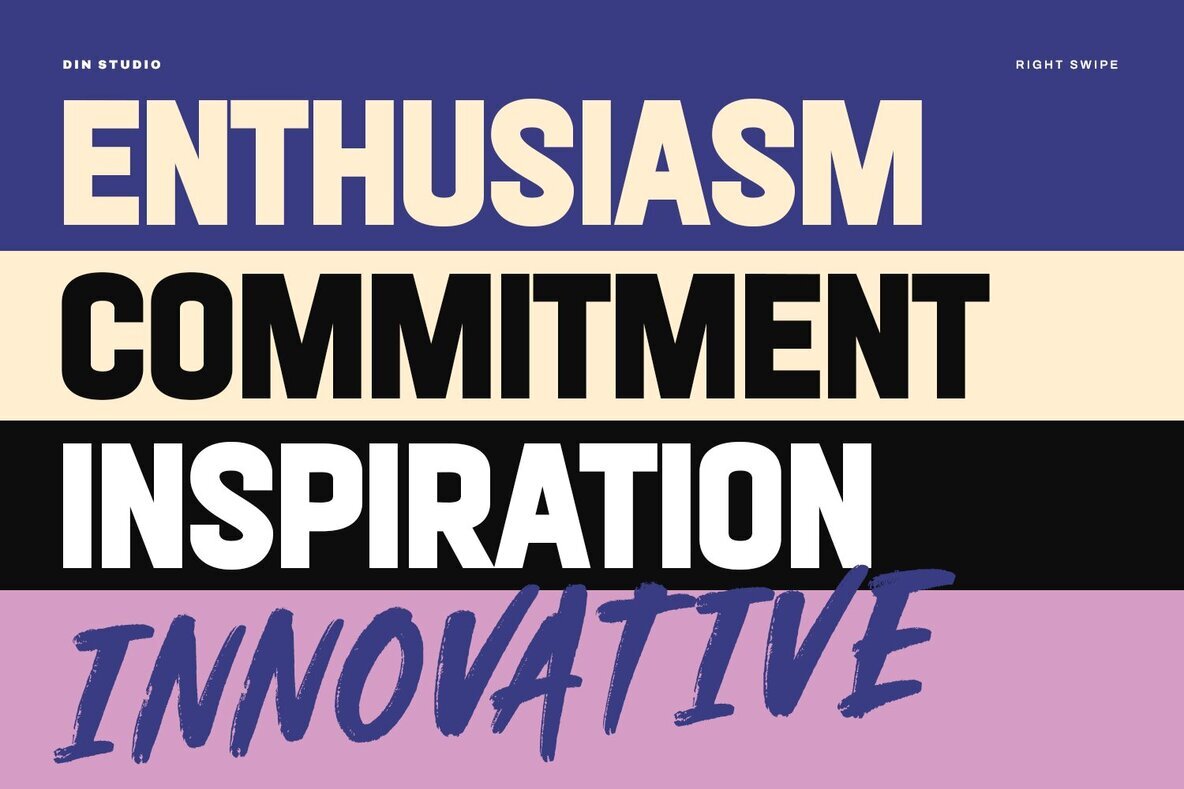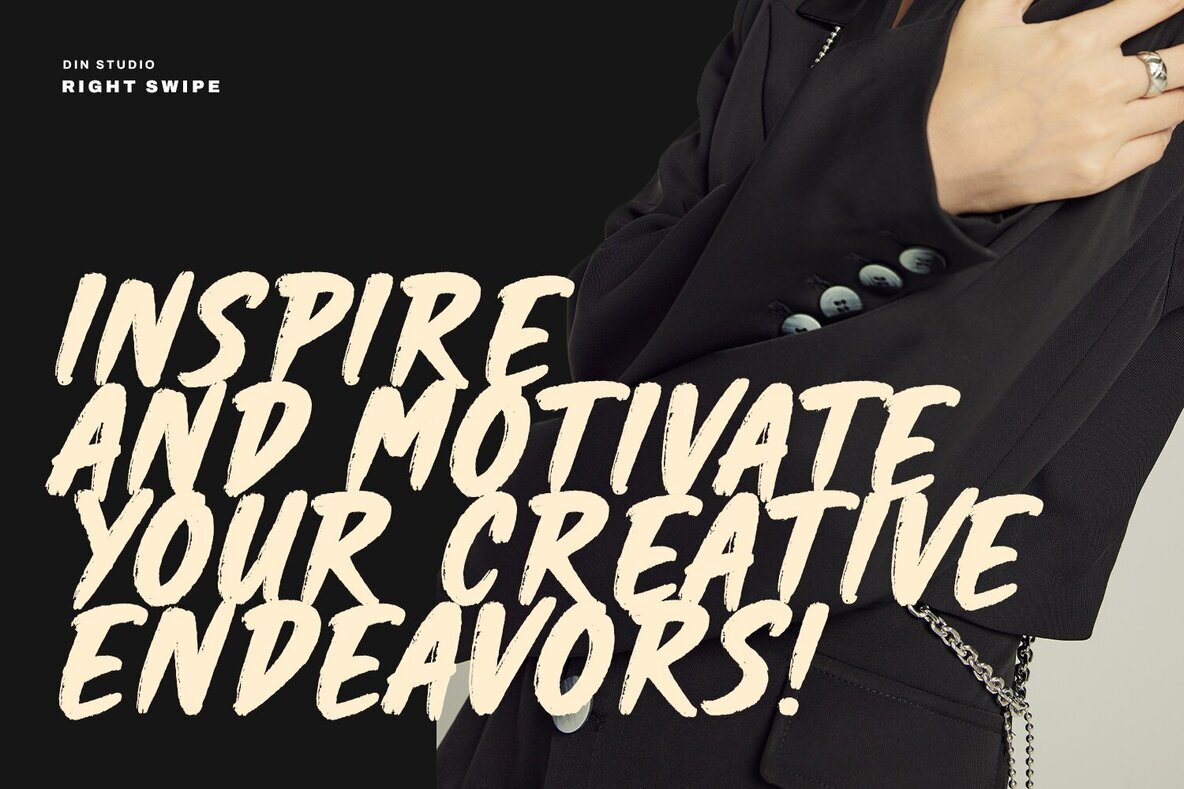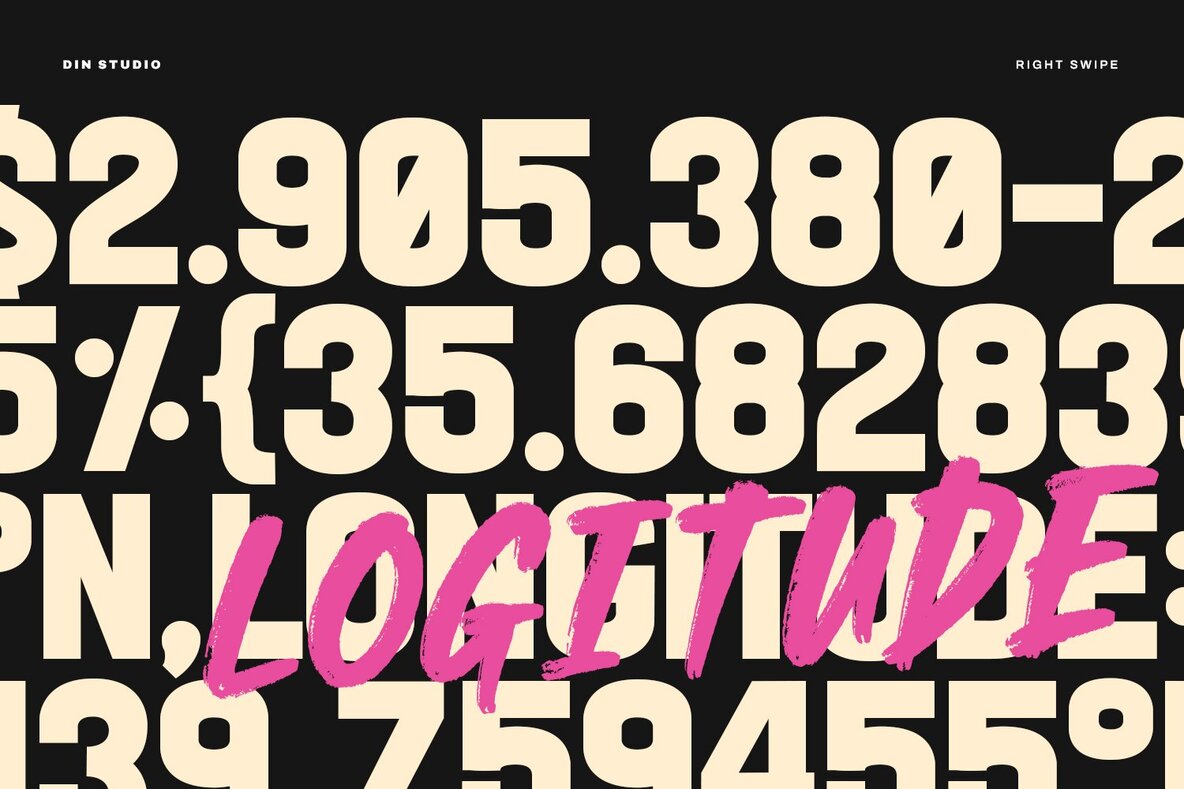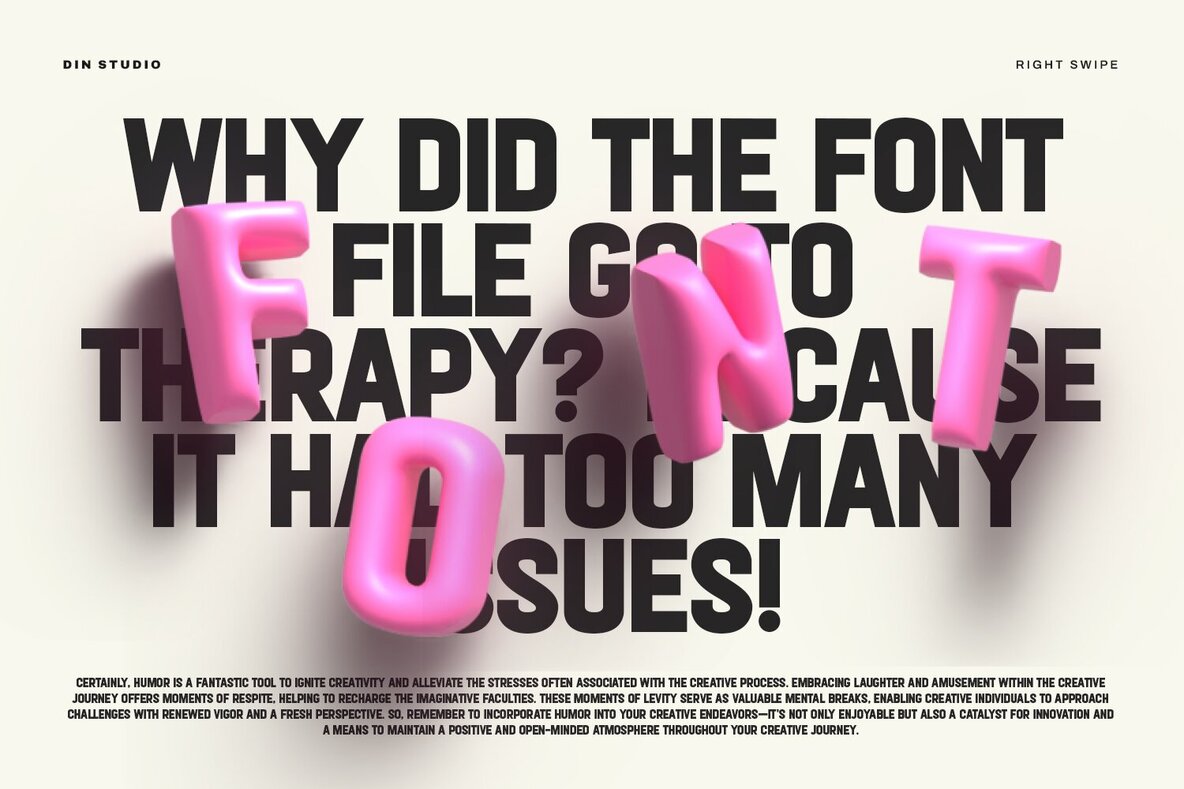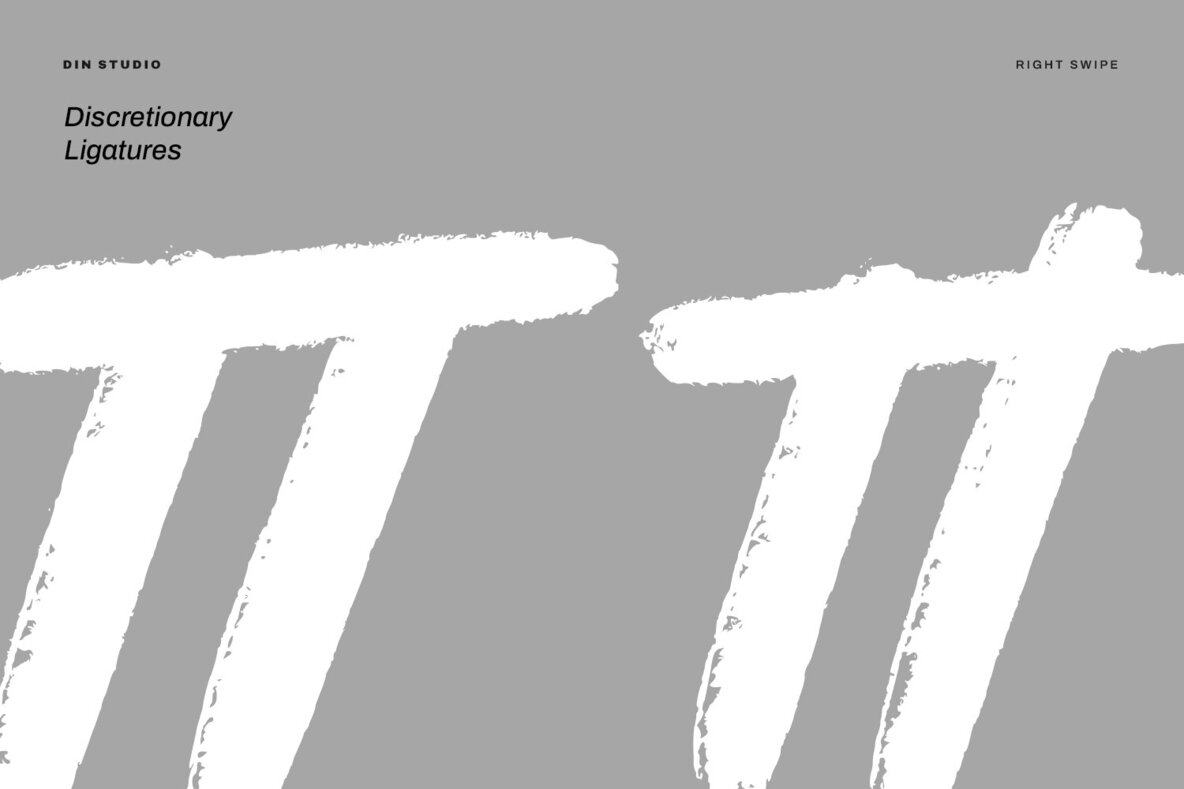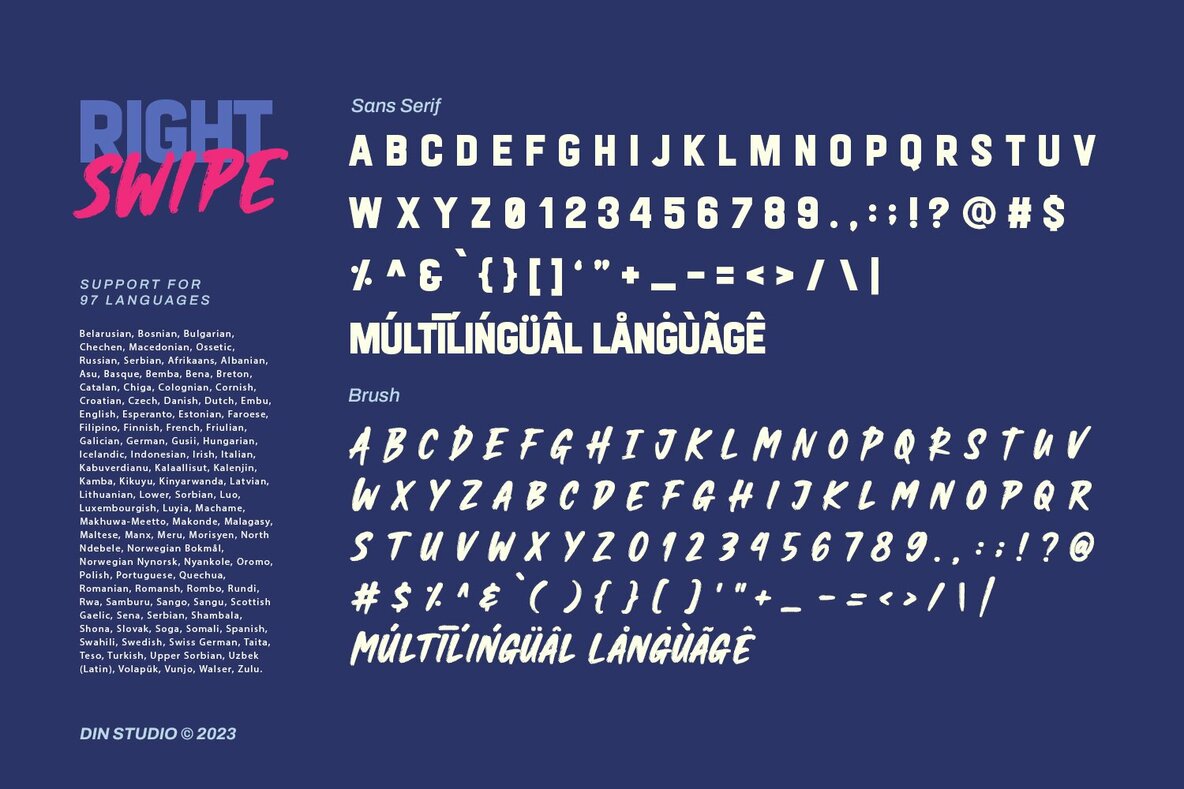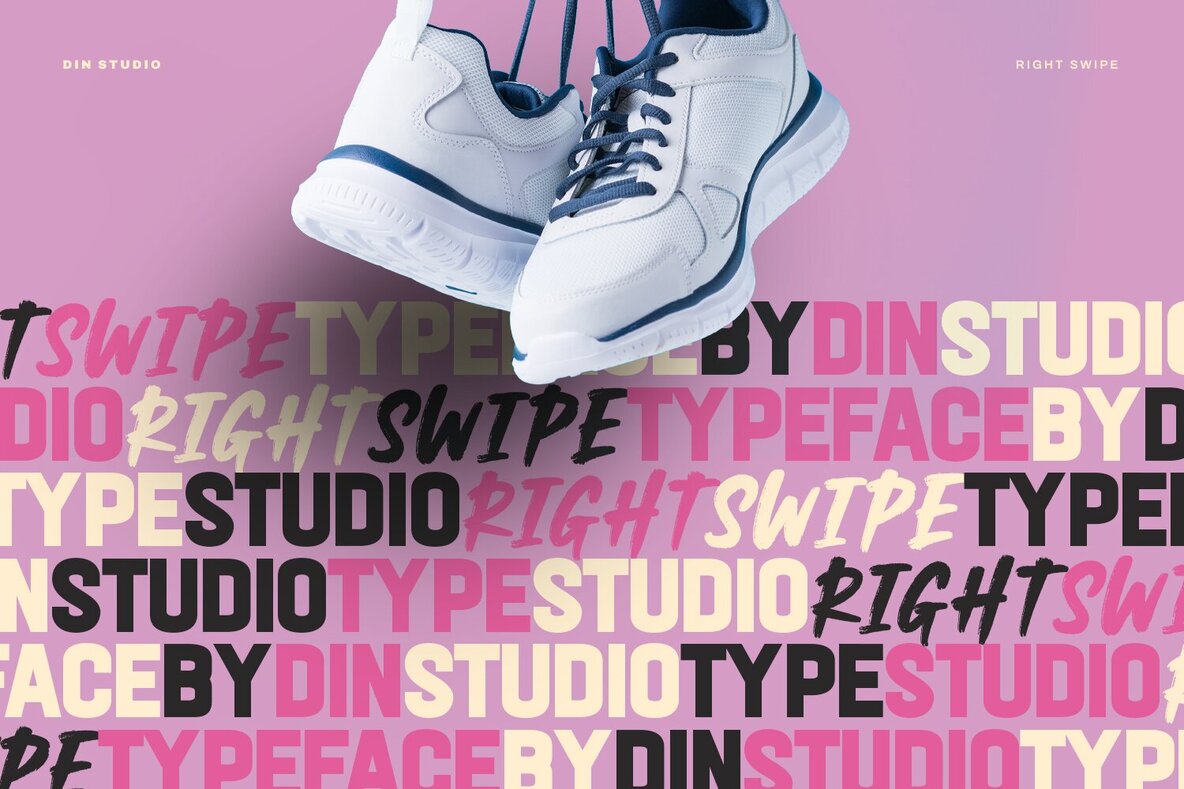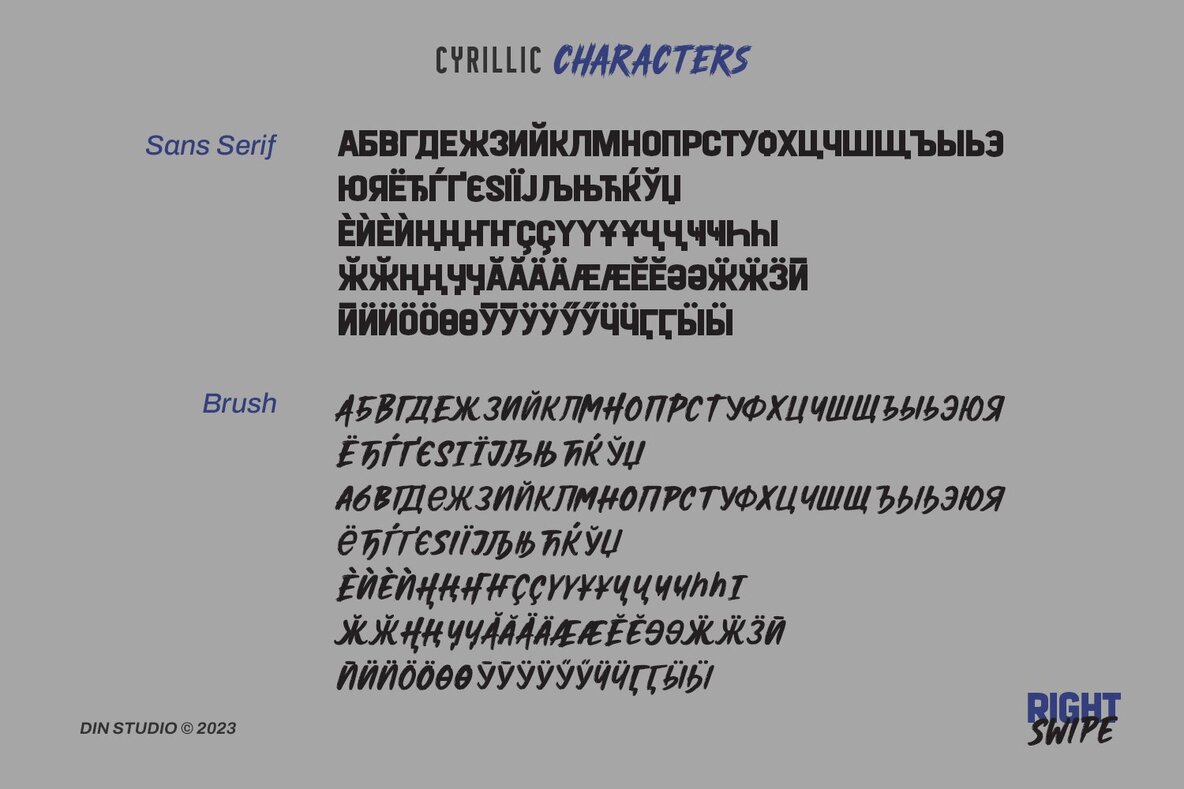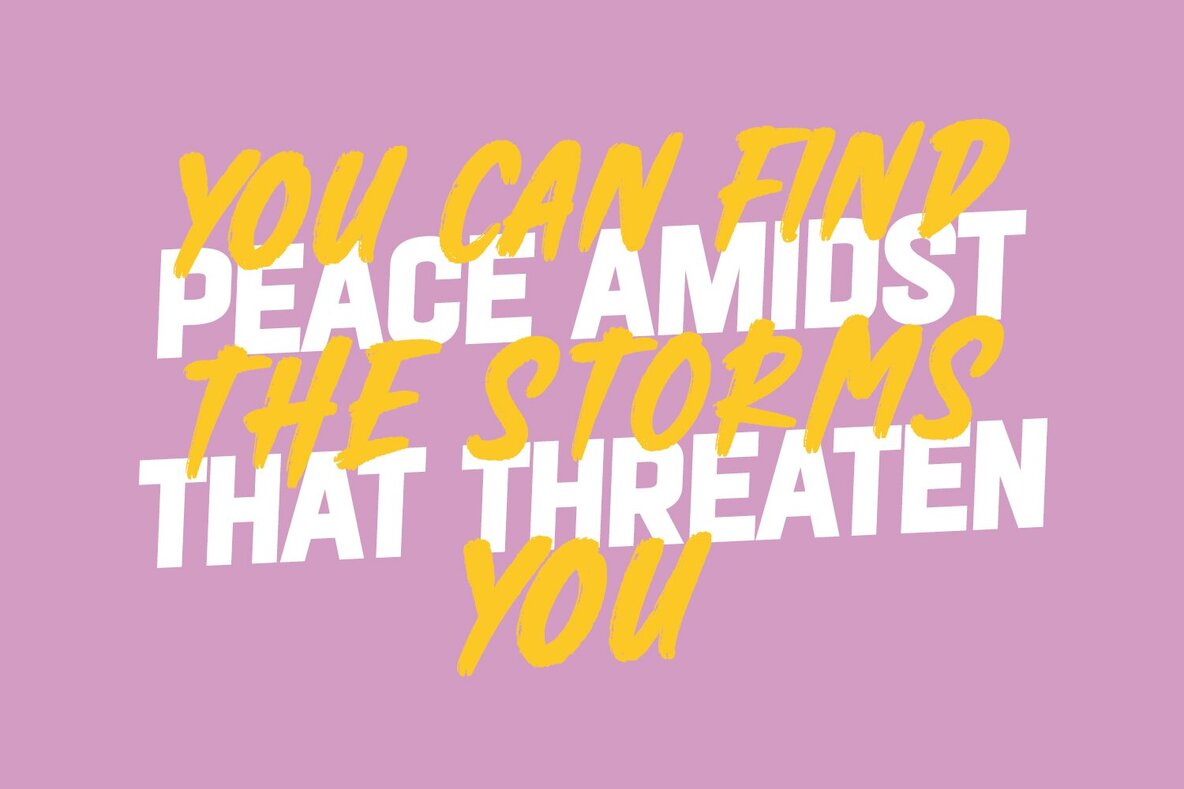
Right Swipe Font
Right Swipe is a dynamic sans serif brush font duo, expertly blending simplicity with creativity. The sans serif component is entirely uppercase, featuring clean lines and a minimalist design, offering timeless sophistication perfect for modern applications. In contrast, the brush font introduces an element of artistic spontaneity, with round shapes and consistent proportions that ensure a harmonious visual blend.
This versatile font combination is ideal for a wide range of design projects, including headlines, logos, posters, flyers, greeting cards, and branding materials. Its diverse applications extend to print media, editorial layouts, and website headers. Right Swipe also supports multiple languages and includes numerals and punctuations, with PUA encoding for additional convenience. Explore the font preview for more inspiration and discover how this unique duo can enhance your design repertoire.